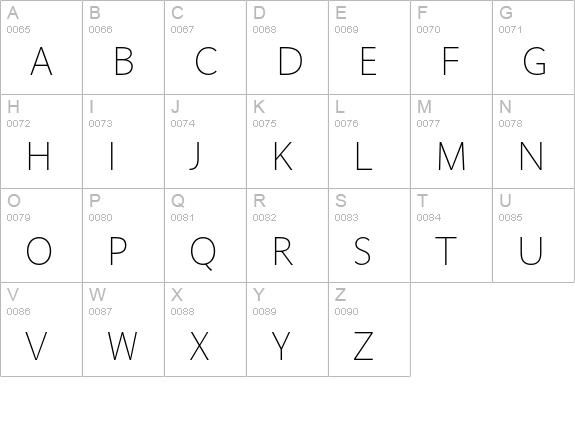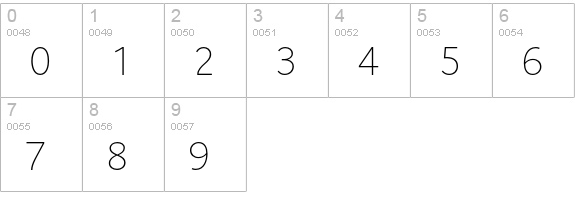
ParisineClair Regular is the standard, neutral variant in the ParisineClair typeface family \xE2\x80\x94 well suited to general body text, paragraphs, and standard typographic work.
ParisineClair Regular is a visually stunning font that effortlessly combines elegance with simplicity. Its clean and modern design makes it the perfect choice for a wide range of projects, from branding and packaging to editorial design and signage. With its balanced letterforms and harmonious spacing, ParisineClair Regular exudes a sense of sophistication and professionalism. The smooth curves and gentle strokes give the font a timeless appeal, making it suitable for both contemporary and classic design styles. But what sets ParisineClair Regular apart is its availability as a free download. Yes, you read that right - this remarkable font is freely accessible for everyone to enjoy. Whether you're a professional designer or a hobbyist, you can now add this exceptional font to your collection without spending a penny. Thanks to FontsMarket.com, you can easily download ParisineClair Regular and start using it in your projects right away. This user-friendly website provides a vast library of high-quality fonts, and ParisineClair Regular is just one of the many gems you'll find there. So why wait? Enhance your designs with the timeless beauty of ParisineClair Regular, and let your creativity soar.